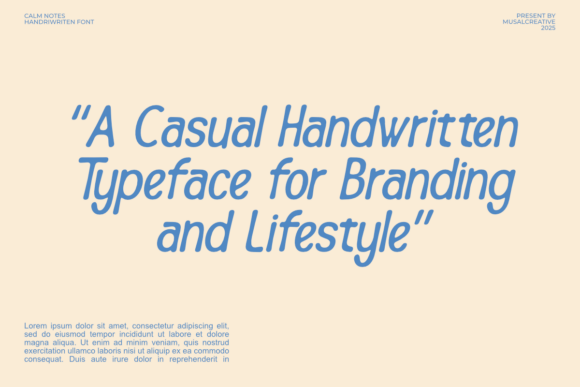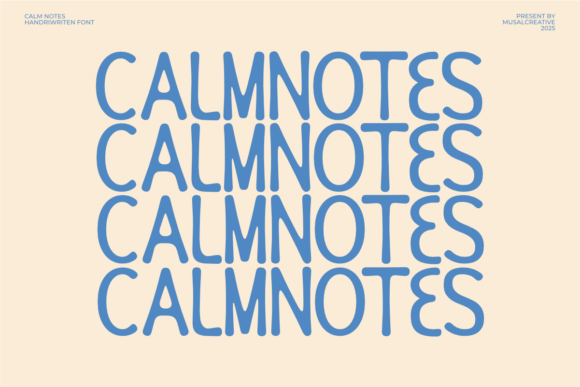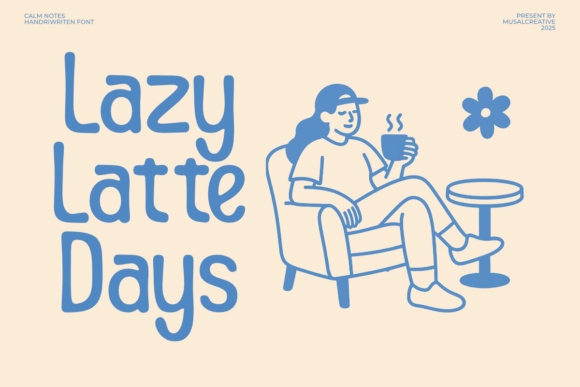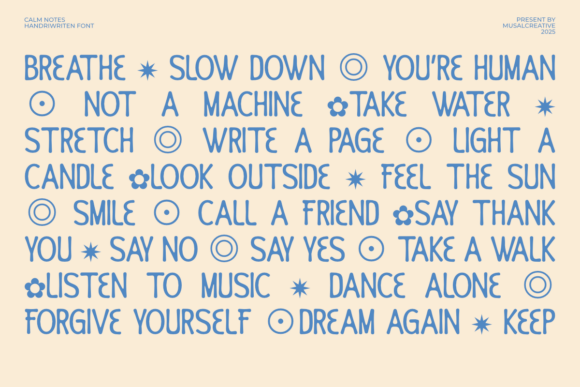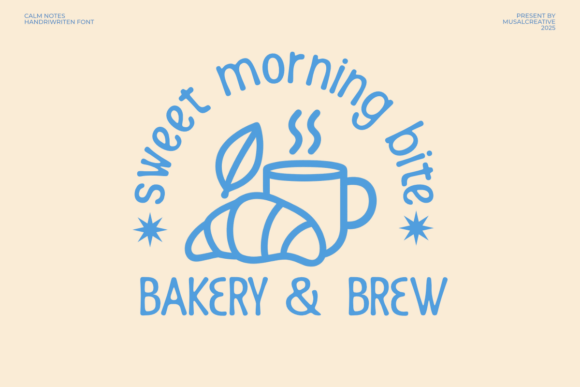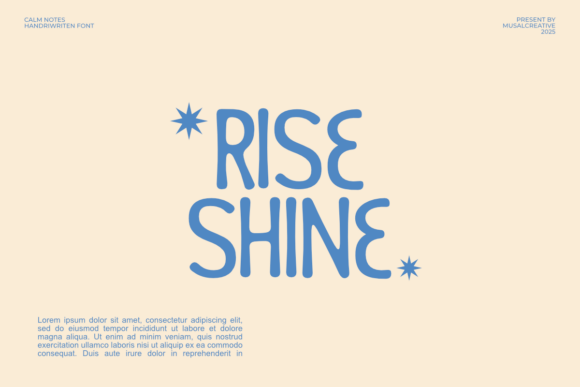
Find Your Cozy Creative Flow with Calm Notes Font
Do you remember those moments when a perfectly brewed cup of coffee or a lazy Sunday morning inspired you to grab your journal and let your thoughts flow? The feeling of putting pen to paper, watching your ideas come to life, and embracing the imperfections of a handwritten note – it’s a sensation like no other. This is exactly what the Calm Notes Font is designed to evoke, bringing a sense of warmth and personality to your creative projects.
This beautiful, casual handwritten typeface is perfect for designers looking to add a touch of lifestyle charm to their work. With its relaxed strokes and playful curves, Calm Notes Font feels natural and approachable, making it ideal for branding, packaging, social media, and editorial designs.
By incorporating Calm Notes Font into your work, you can bring a sense of authenticity and comfort to your projects, making them feel more human and heartfelt. Whether you’re working on a lifestyle blog, coffee shop branding, or stationery design, this font is sure to capture the essence of cozy living and leave a lasting impression on your audience.
Calm Notes Font Key Features
- Font Family: Calm Notes is a unique, hand-drawn font designed to evoke a sense of serenity and calmness. It features a clean, minimalist aesthetic with subtle flair.
- Unique Characteristics: Calm Notes features a distinctive, hand-drawn look with subtle imperfections, giving it a personal and authentic feel.
Calm Notes Font Review
I recently had the chance to work with the Calm Notes font, and I must say it’s a nice addition to any design project. Here are some things that caught my attention: ✨
- It’s super legible, even at smaller font sizes, which is perfect for body text.
- The font has a clean, modern feel that works well in both digital and print projects.
- The line spacing is well-balanced, making it easy to read for extended periods.
- The font is highly customizable, allowing for easy adjustments to line height, letter spacing, and more.
Of course, no font is perfect, and Calm Notes has a few limitations: ⚠️
- The font can feel a bit generic, lacking a strong personality or unique character.
- The italic and bold styles can look a bit inconsistent with the regular font.
- The font may not be suitable for projects that require a lot of dramatic flair or emphasis.
Overall, I’d say Calm Notes is a solid choice for designers looking for a clean, modern font that’s easy to read and customize. While it may not be the most exciting font out there, it gets the job done, and that’s what matters. I’d definitely consider using it again in the future.
Getting the Most Out of Calm Notes Font
For optimal results, pair Calm Notes Font with a clean and minimalist design aesthetic.
Use Calm Notes Font for titles, headings, and emphasis, reserving more formal fonts for body text.
Experiment with different font sizes and styles to create visual hierarchy and balance in your design.
Calm Notes Font is ideal for:
- Designing digital products, such as mobile apps and websites.
- Creating marketing materials, such as brochures and flyers.
- Developing educational resources, such as textbooks and workbooks.